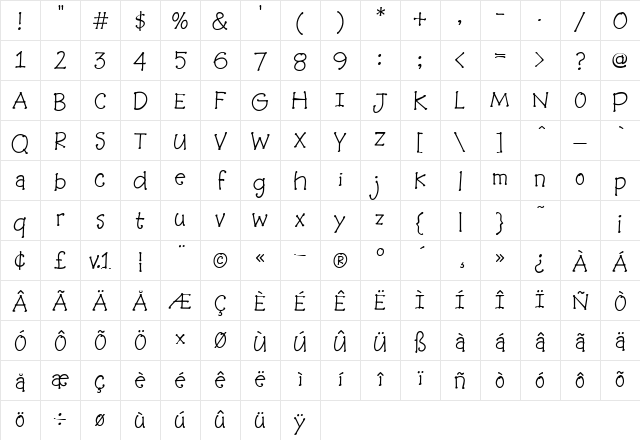
BaaBookHmk Regular
Design Context for BaaBookHmk
BaaBookHmk is a composed and adaptable typeface that performs quietly and consistently across a wide range of design contexts.